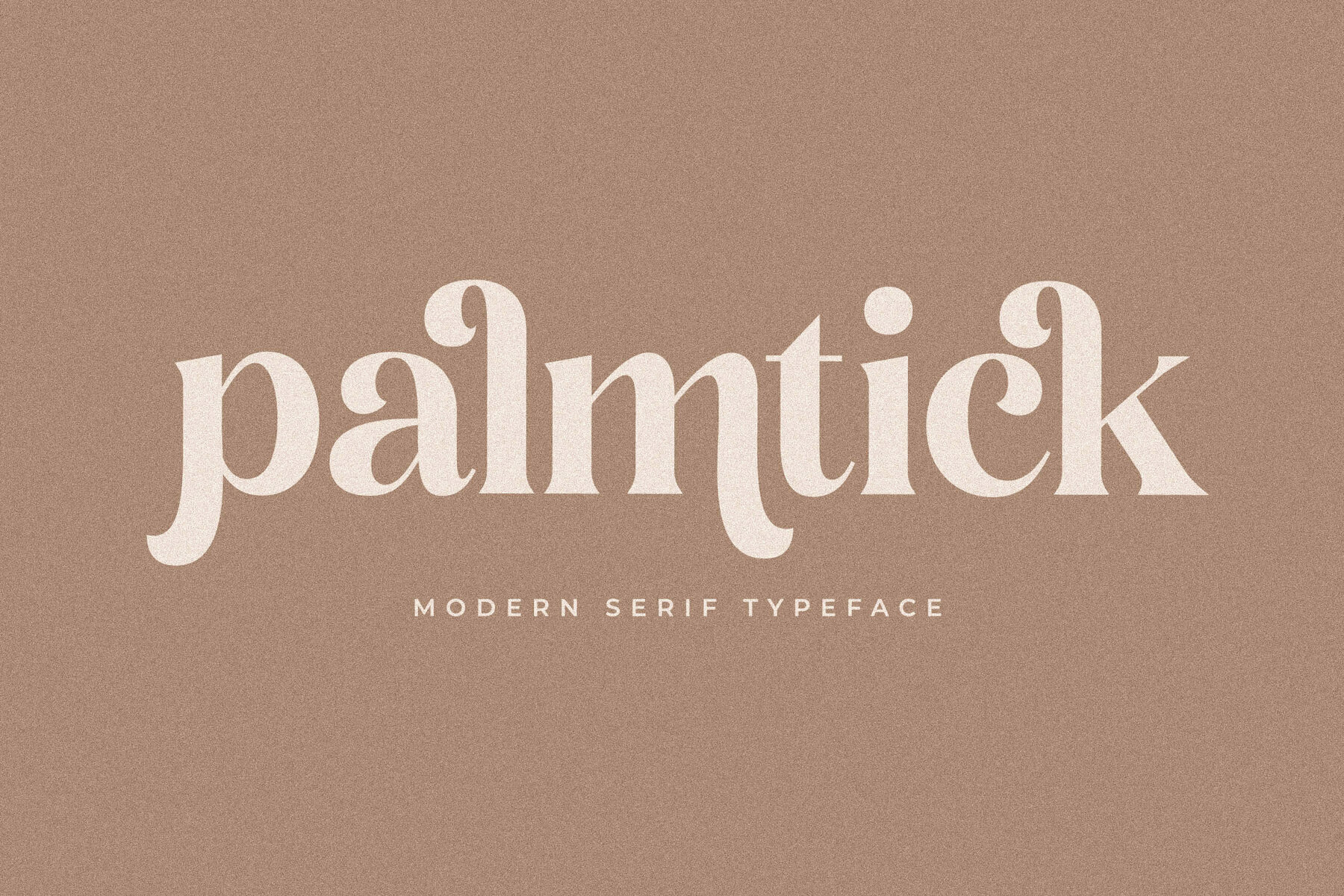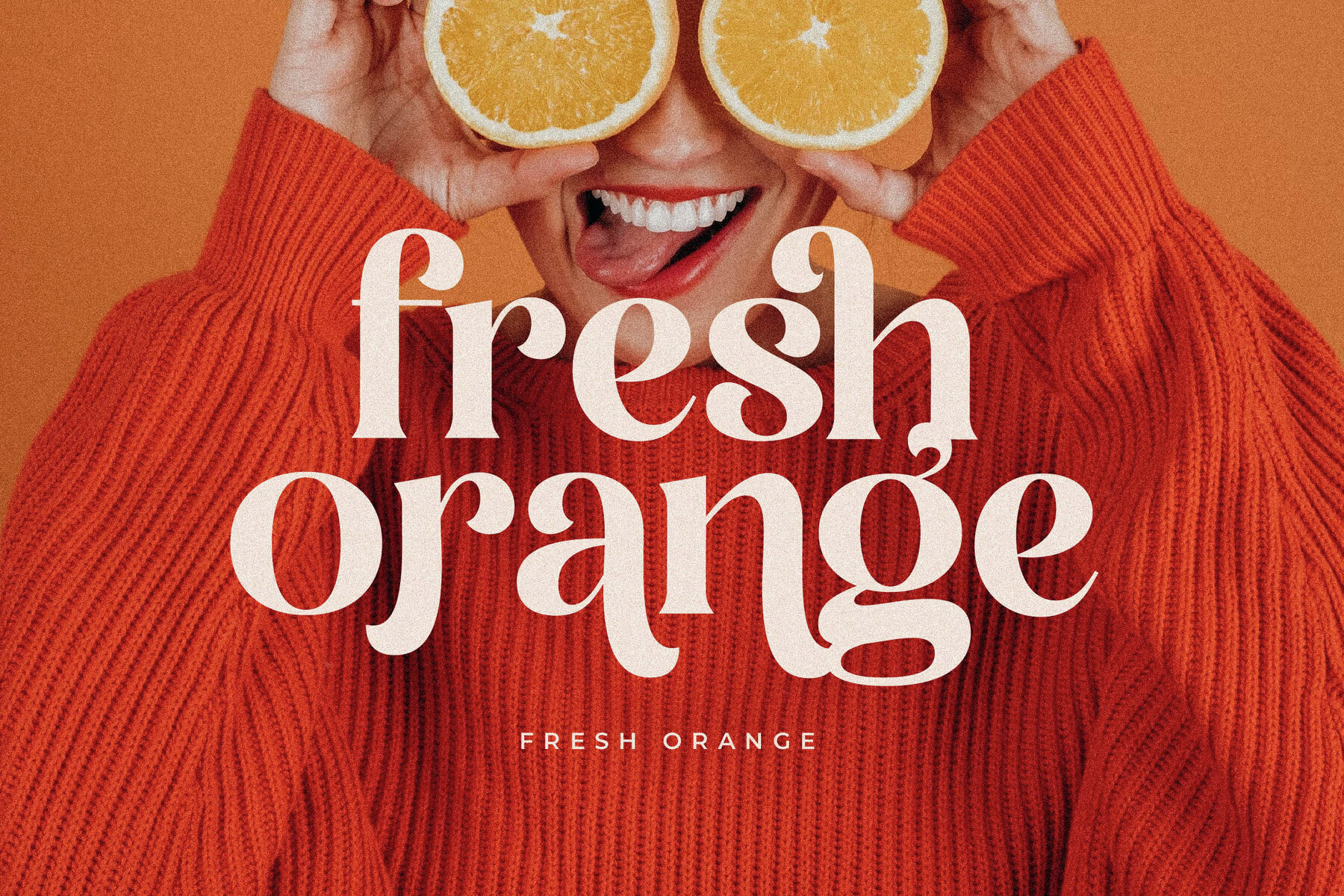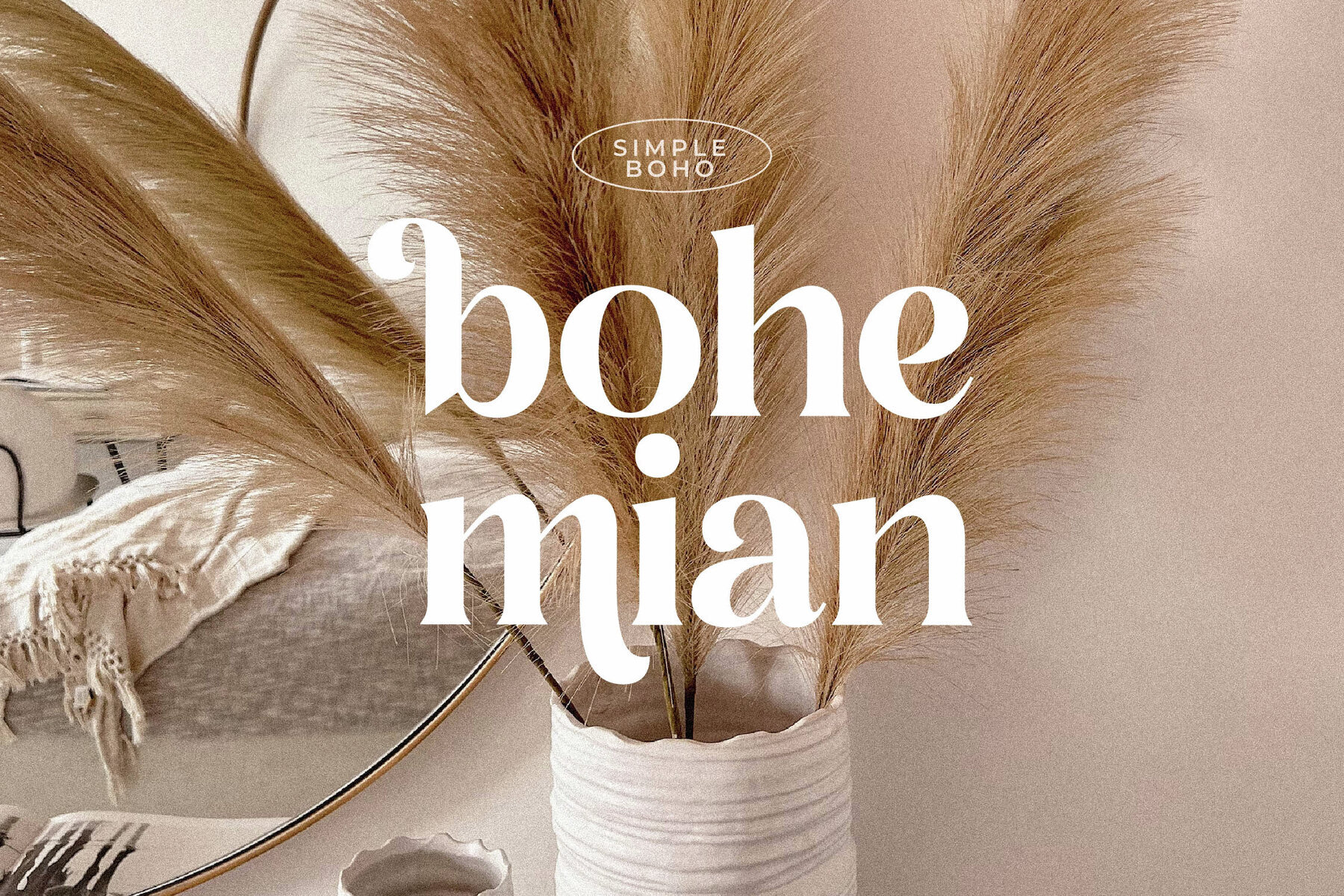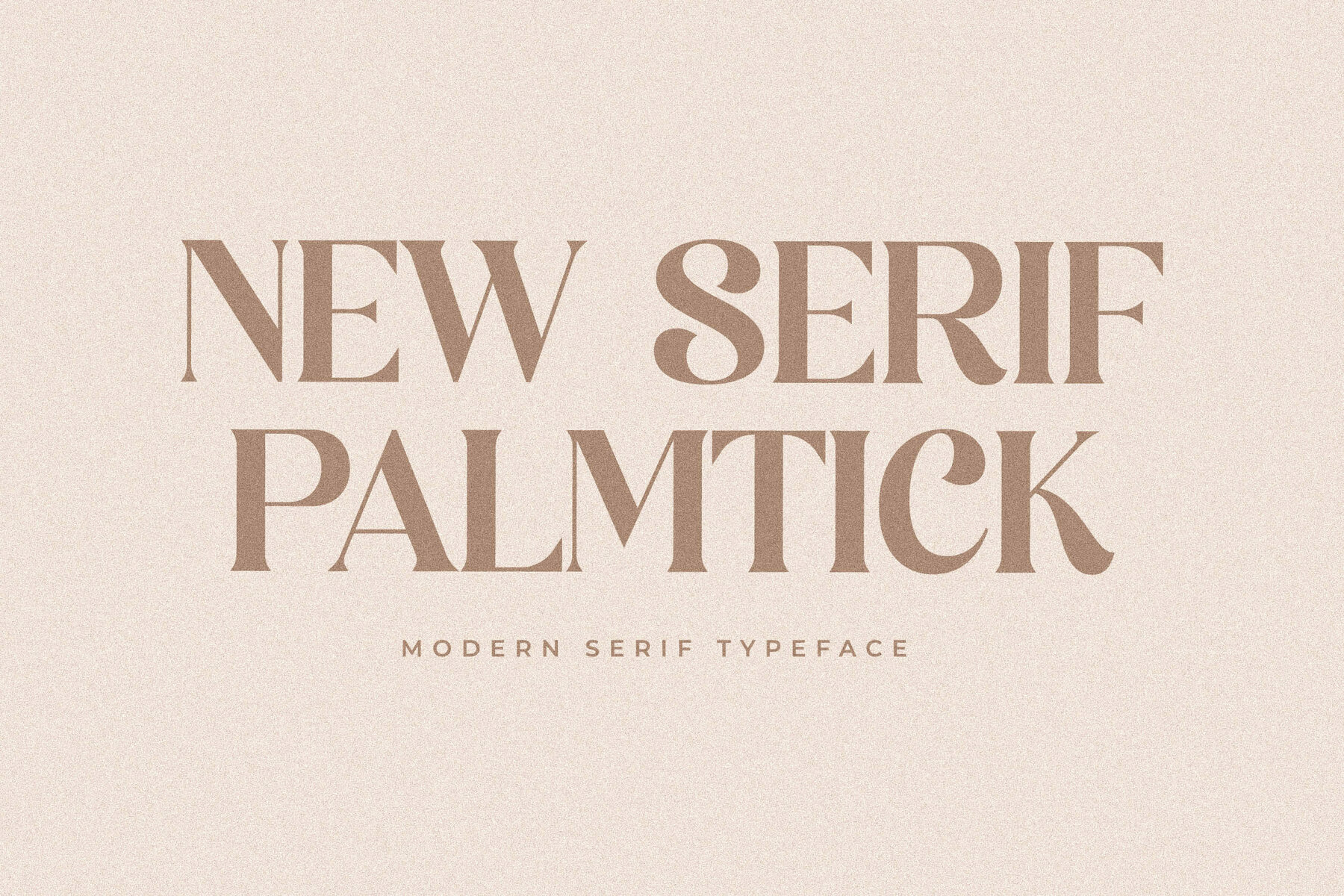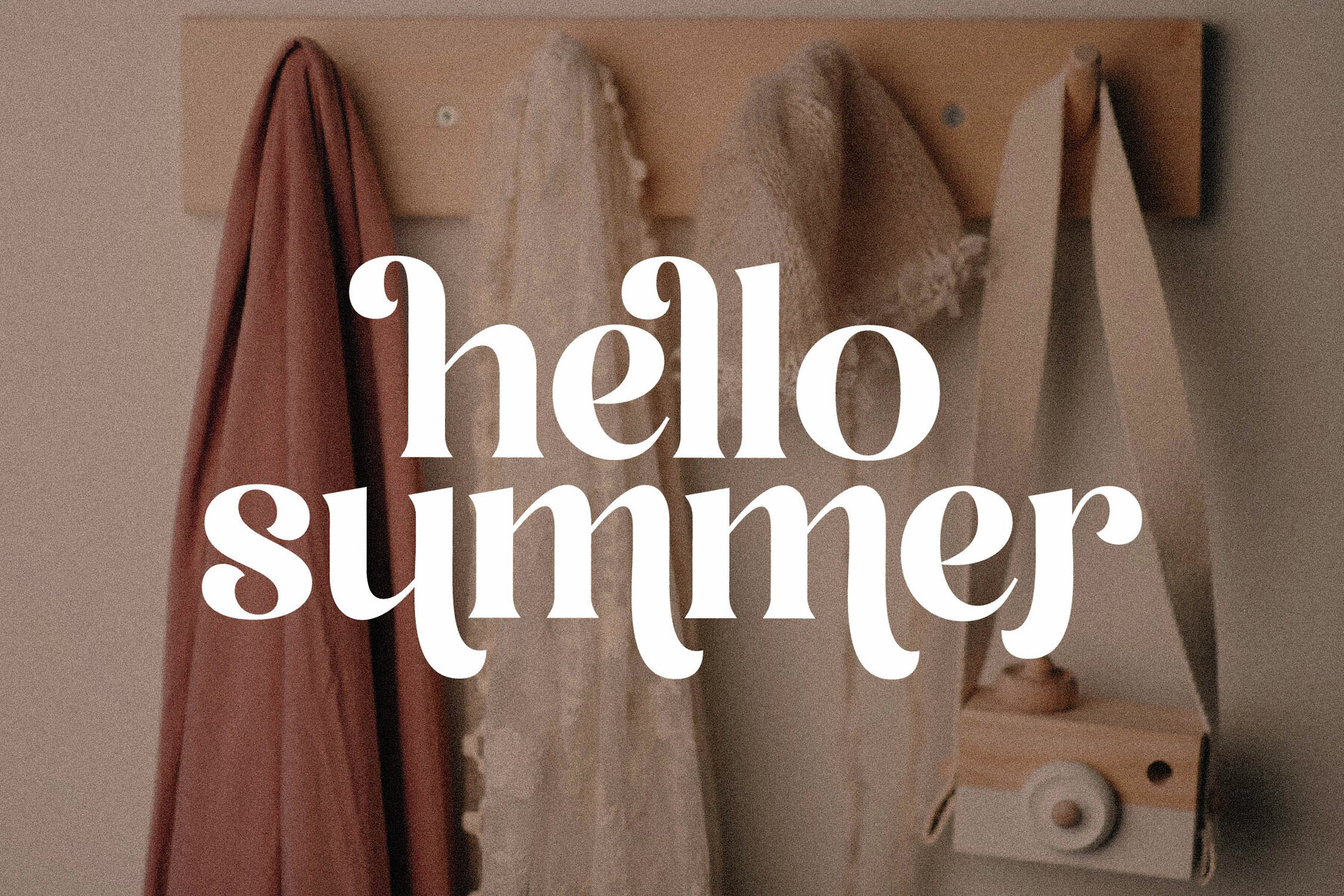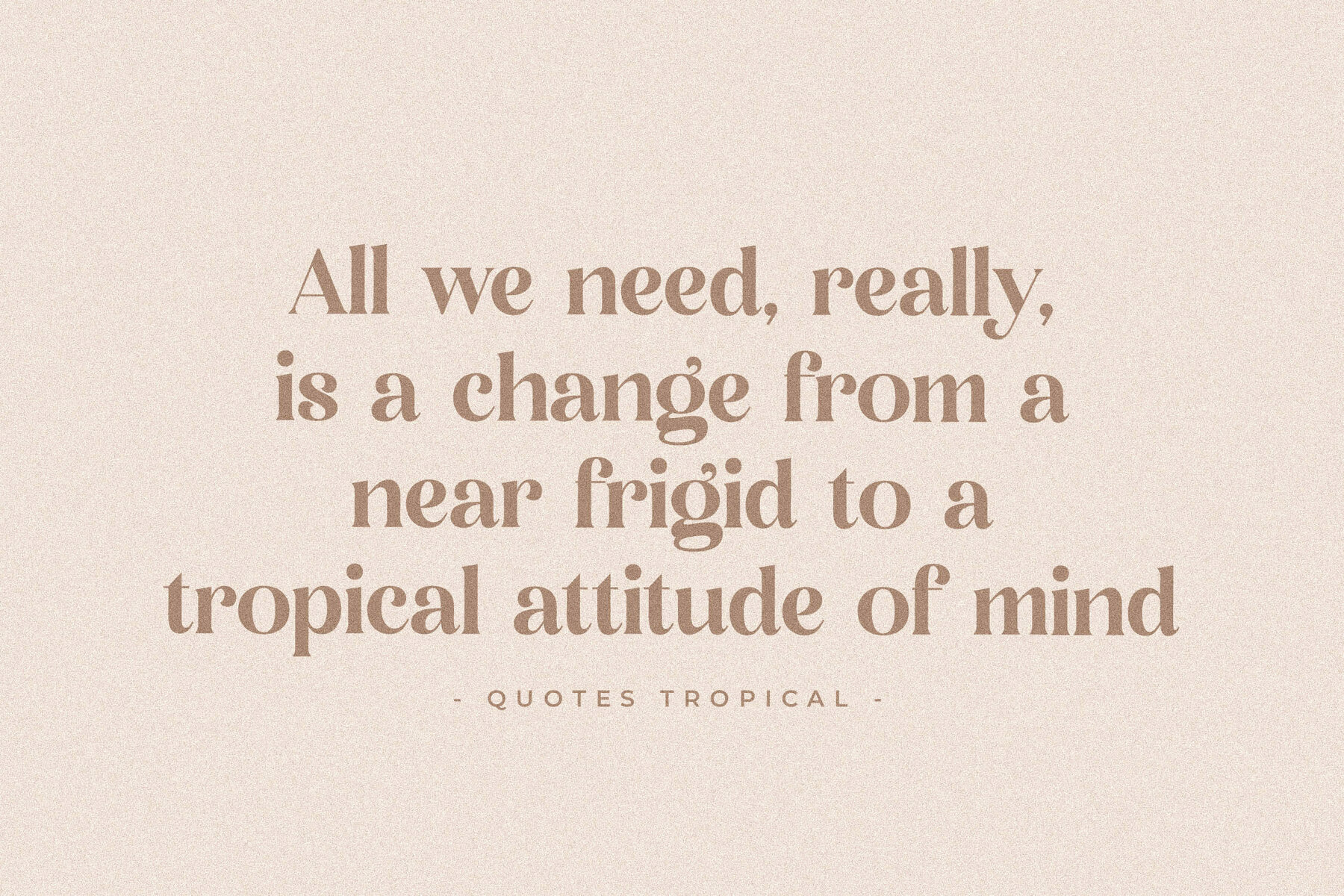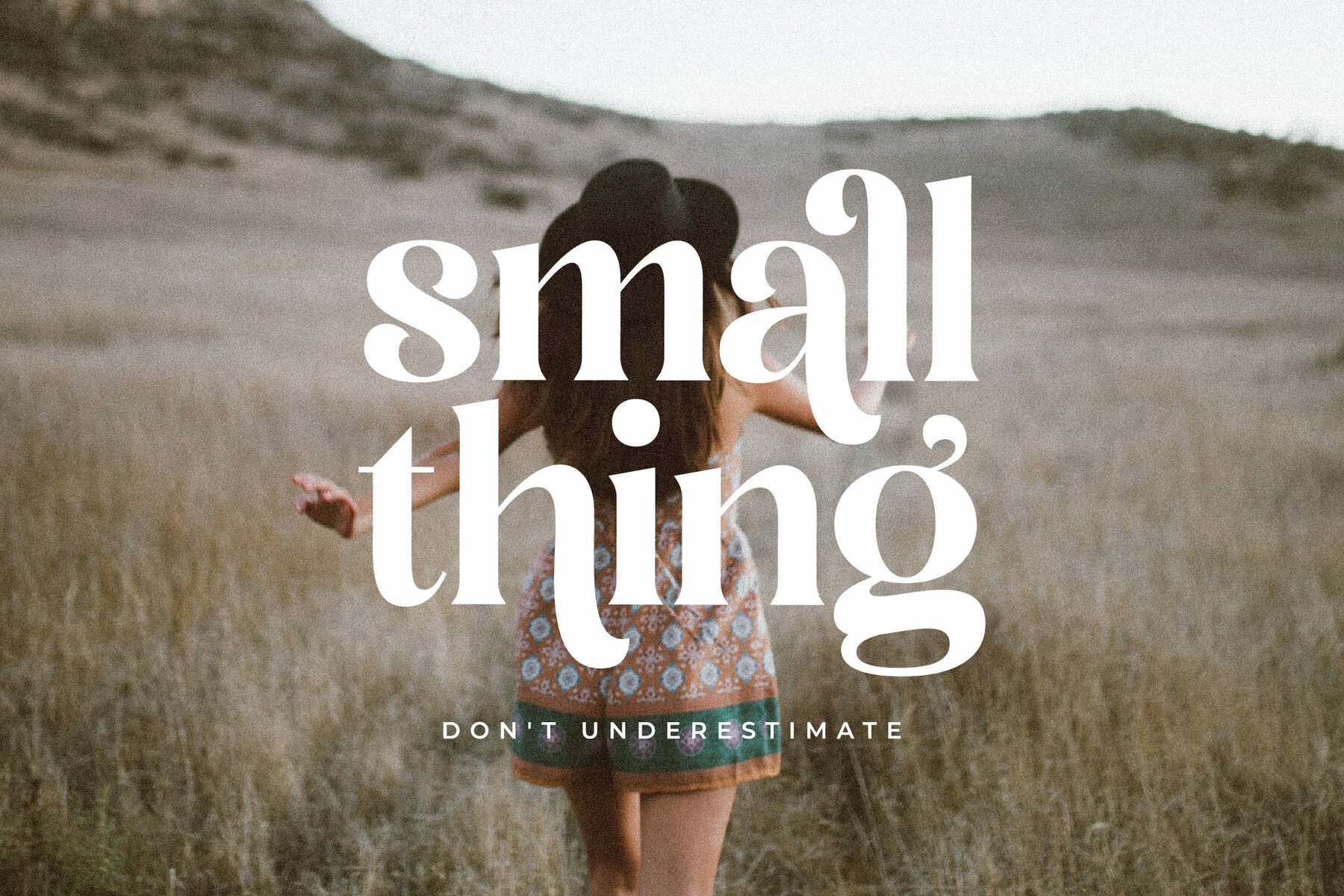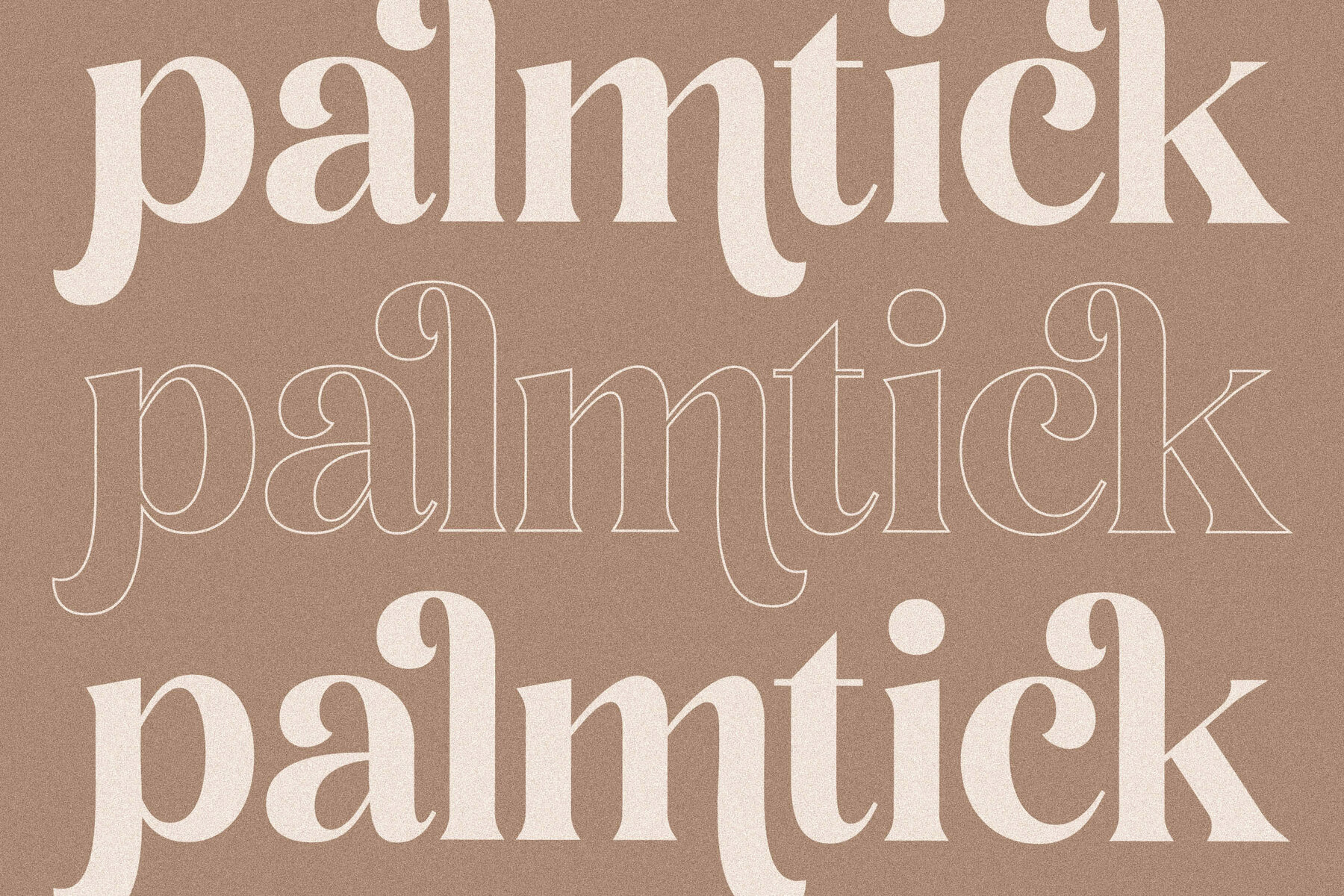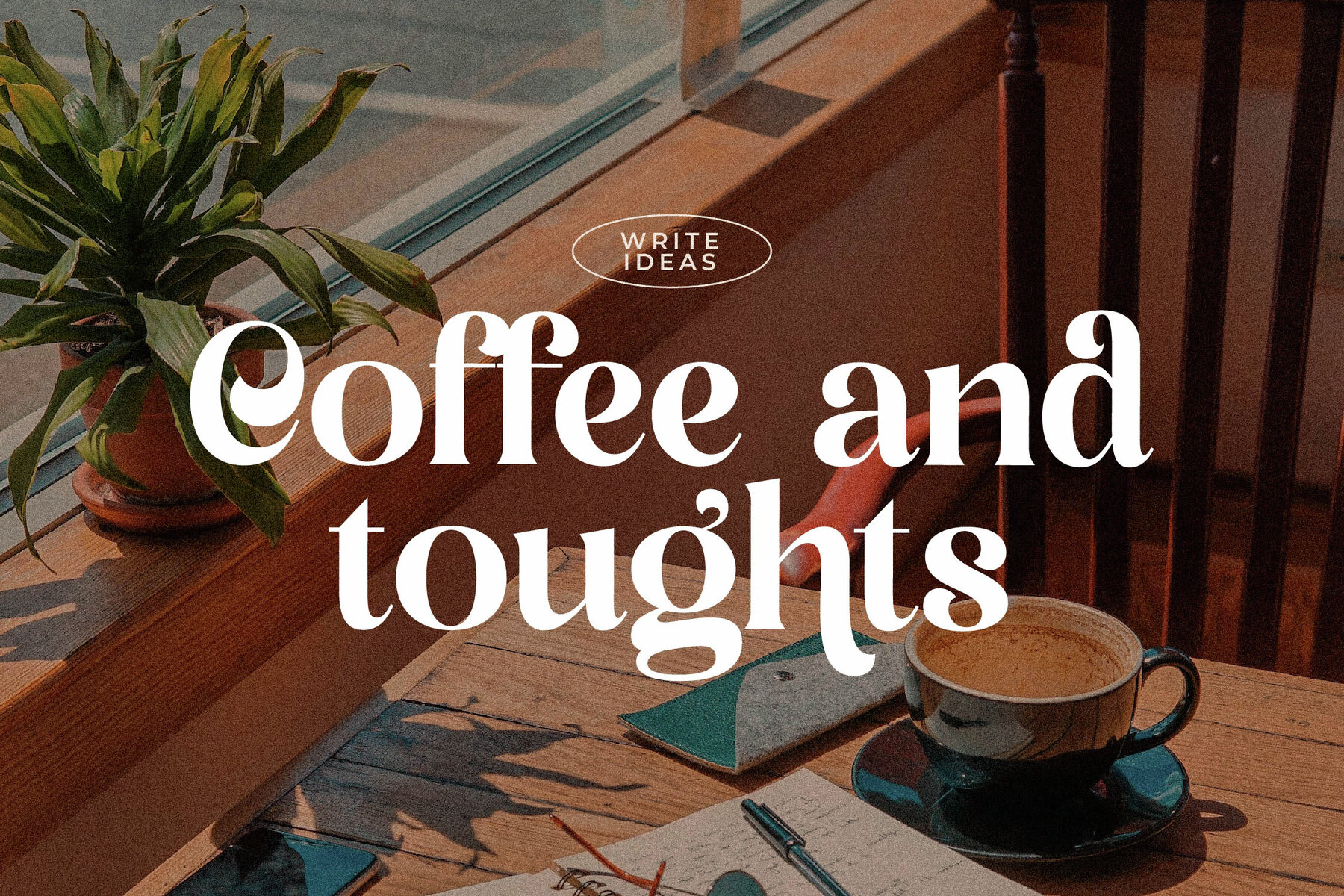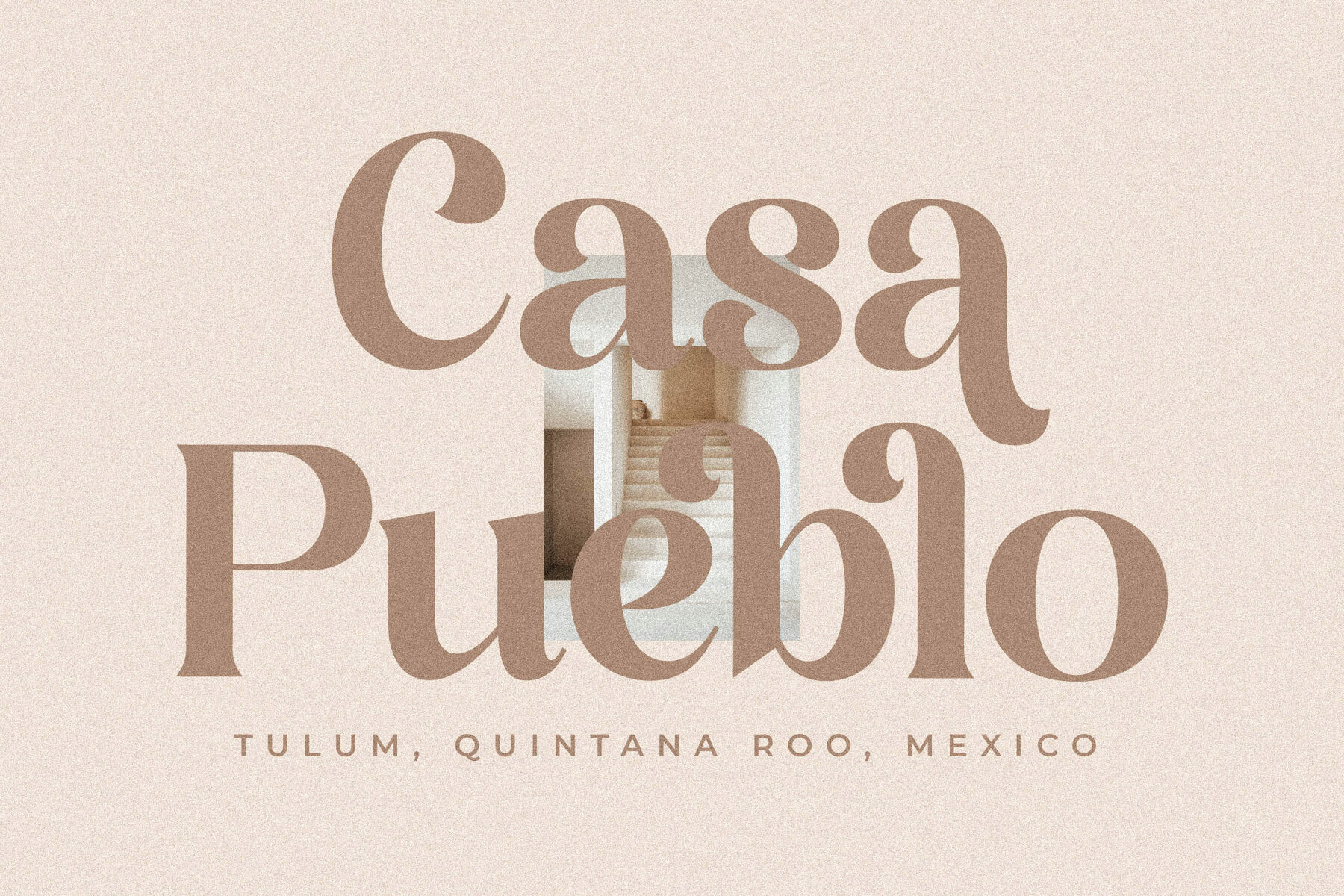
Palmtick Font
Discover the Palmtick Typeface, a sophisticated serif font crafted by Storytype Studio. With its harmonious blend of modern flair and traditional elegance, it effortlessly elevates any design project. Ideal for creating luxurious logos, captivating book or movie titles, and stylish fashion branding, Palmtick brings a unique touch to magazines, clothing labels, and more.Palmtick Typeface